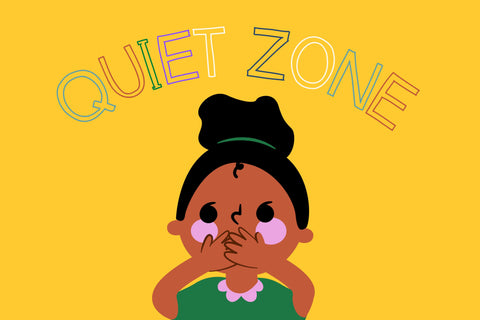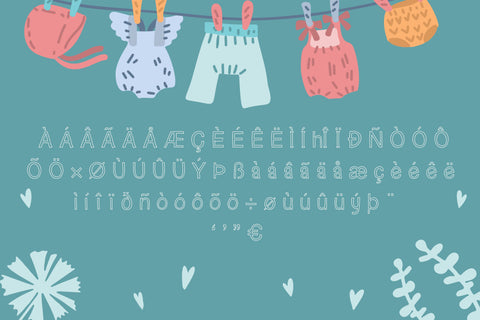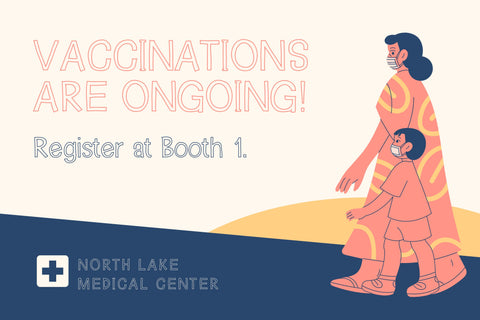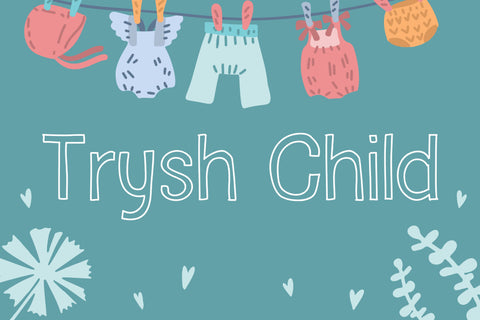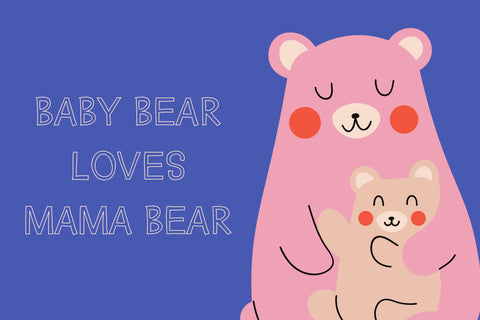
Trysh Child Font
Trysh Child is a simple and joyful display font. Its casual charm makes it appear wonderfully down-to-earth, readable and, ultimately, incredibly versatile.